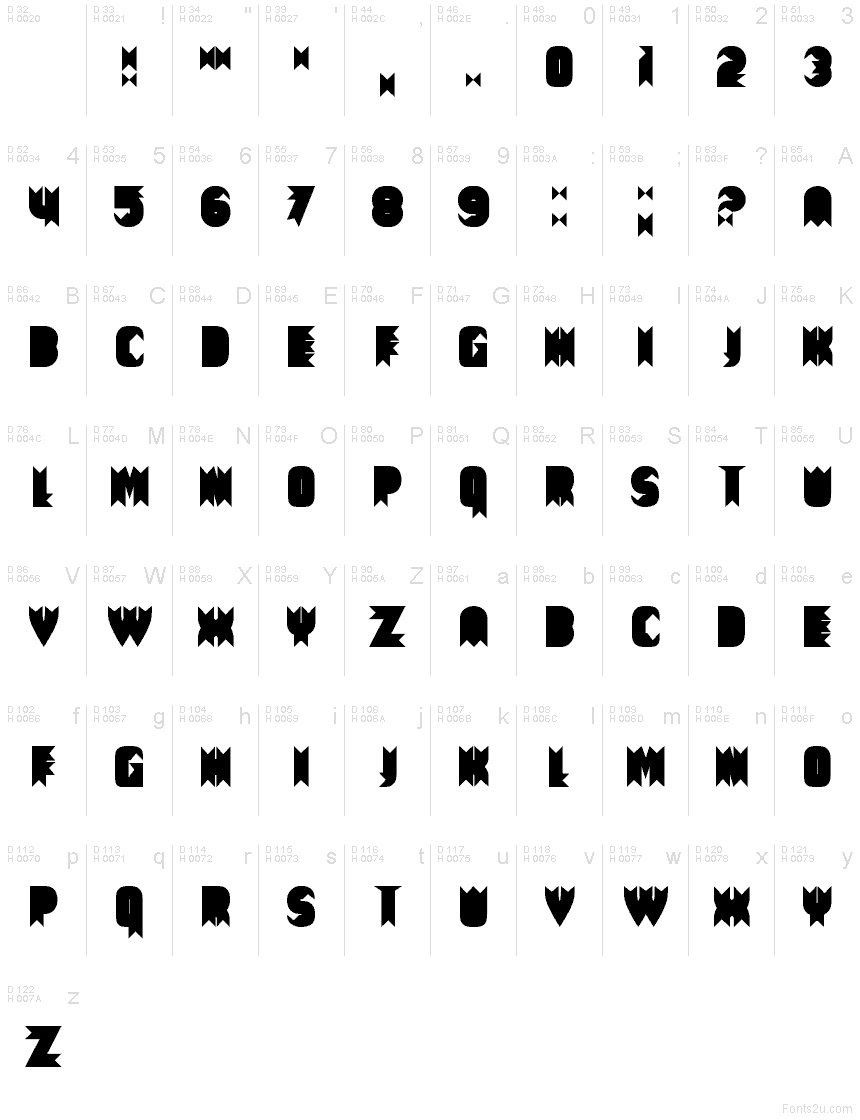
Ripped Regular
Ripped font by Vladimir Nikolic is a bold geometric display font with a distinctly sharp, angular finish. It is modern, edgy, and futuristic at the same time. Thanks to a largely mechanical outline, it would make an excellent choice in any print or digital design looking to adopt such themes. It consists only of perfectly consistent uppercase letters.
Ripped is suitable for designing logos, packaging labels, branding posters or signage for tech-oriented businesses. Use it in magazine and newspaper headlines with caution as its unique characters are not everyday readers’ favorites that they are used to seeing in print. Blog titles of technical articles can also benefit from this exceptionally free display typeface.